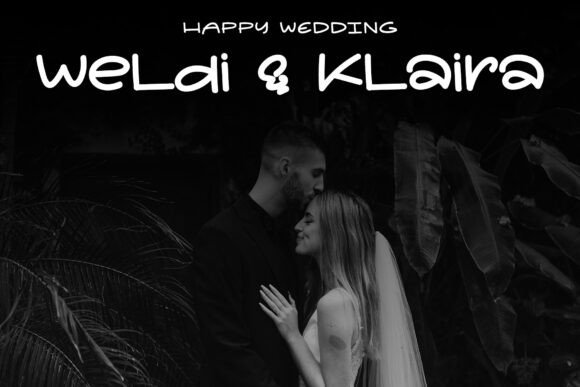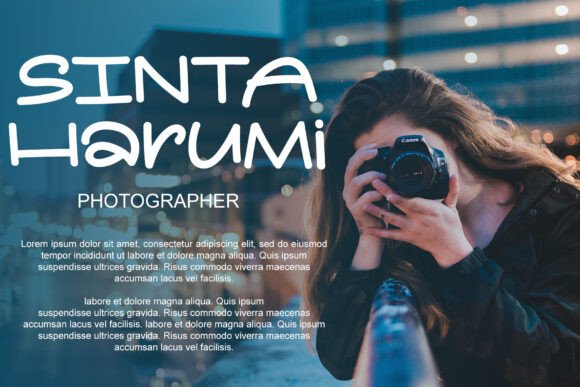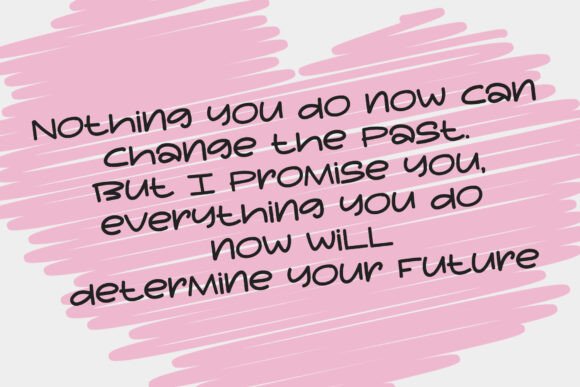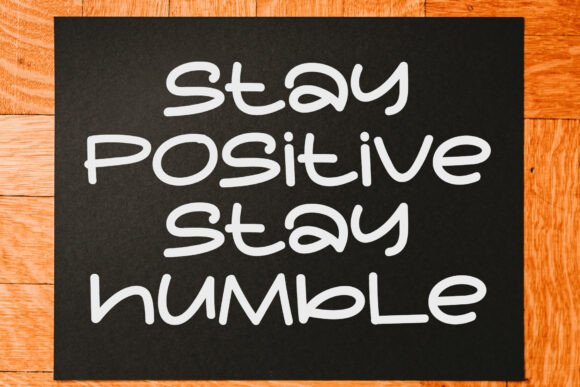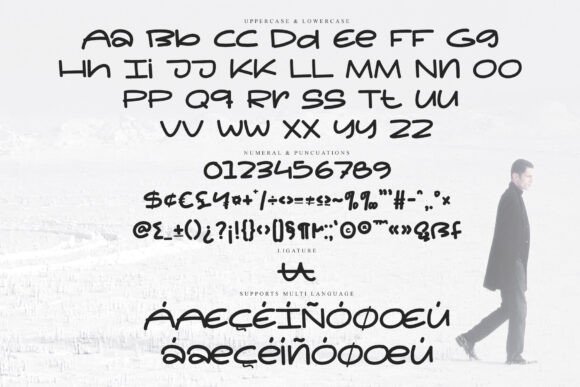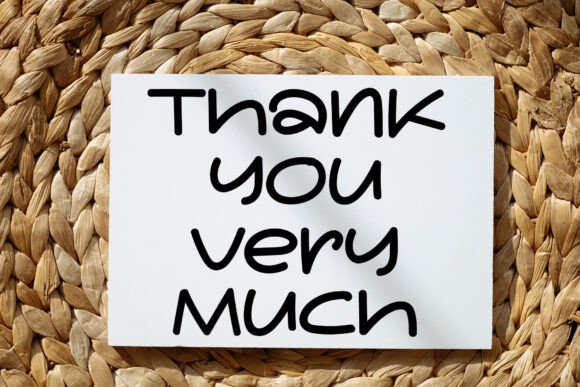
Introducing Daily Christmas Font: A Simple yet Elegant Handwritten Font
Are you looking for a font that exudes simplicity, readability, and versatility? Look no further than the Daily Christmas Font. This beautiful handwritten font is perfect for designers and crafters seeking a straightforward and minimalist sans-serif font for their projects. In this article, we’ll dive into the features and benefits of Daily Christmas Font, and explore how it can elevate your design work.
What is Daily Christmas Font?
Daily Christmas Font is a simple handwritten font that boasts clean lines and unadorned letterforms. Its minimalist design makes it an excellent choice for a wide range of design projects, from branding and editorial design to web design. The font’s simplicity ensures that it remains legible even at small sizes, making it perfect for use in body text or captions.
Key Features of Daily Christmas Font
- Simple and Handwritten: Daily Christmas Font features a simple, handwritten design that gives it a personal and approachable feel.
- Minimalist Sans-Serif: The font’s sans-serif design ensures that it remains clean and uncluttered, making it perfect for use in a variety of design projects.
- Highly Legible: The font’s clean lines and simple letterforms make it highly legible, even at small sizes.
- Versatile: Daily Christmas Font is suitable for use in a wide range of design projects, from branding and editorial design to web design.
Benefits of Using Daily Christmas Font
So, why should you choose Daily Christmas Font for your design projects? Here are just a few benefits of using this beautiful font:
- Easily Readable: The font’s simple design ensures that it remains easily readable, even for readers with visual impairments.
- Professional Look: Daily Christmas Font gives your design work a professional look that’s perfect for use in business and marketing materials.
- Customizable: The font’s simple design makes it easy to customize and modify to suit your specific design needs.
- Time-Saving: With Daily Christmas Font, you can save time and effort in your design work, as it eliminates the need to create custom lettering from scratch.
Use Cases for Daily Christmas Font
Daily Christmas Font is a versatile font that can be used in a wide range of design projects. Here are some use cases to consider:
- Branding: Use Daily Christmas Font to create a professional and cohesive brand identity for your business.
- Editorial Design: The font’s simplicity and readability make it perfect for use in editorial design projects, such as magazines, newspapers, and books.
- Web Design: Daily Christmas Font is suitable for use in web design projects, including website headers, body text, and captions.
- Crafting and DIY Projects: The font’s handmade feel makes it perfect for use in crafting and DIY projects, such as handmade cards, gift tags, and scrapbooking.
Tips for Using Daily Christmas Font
Here are some tips to keep in mind when using Daily Christmas Font in your design work:
- Pair with Other Fonts: Consider pairing Daily Christmas Font with other fonts to create visual interest and contrast.
- Experiment with Colors: The font’s simplicity makes it easy to experiment with different colors and textures.
- Use in Combination with Images: Daily Christmas Font looks great when used in combination with images and graphics.
In conclusion, Daily Christmas Font is a beautiful and versatile handwritten font that’s perfect for designers and crafters seeking a simple and elegant sans-serif font. Its clean lines, unadorned letterforms, and high legibility make it an excellent choice for a wide range of design projects. Whether used for branding, editorial design, web design, or crafting and DIY projects, Daily Christmas Font is sure to elevate your design work and give it a professional look.